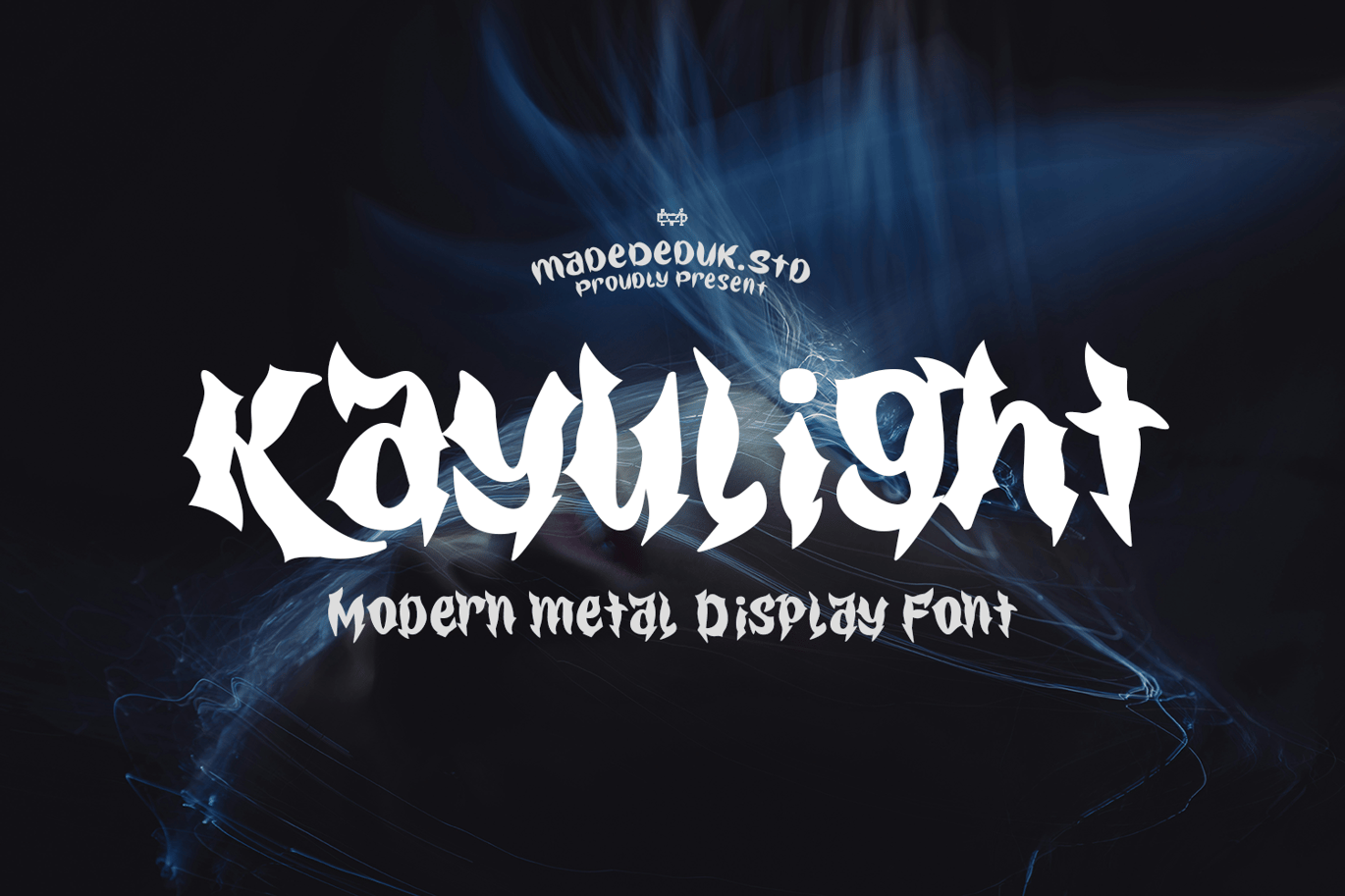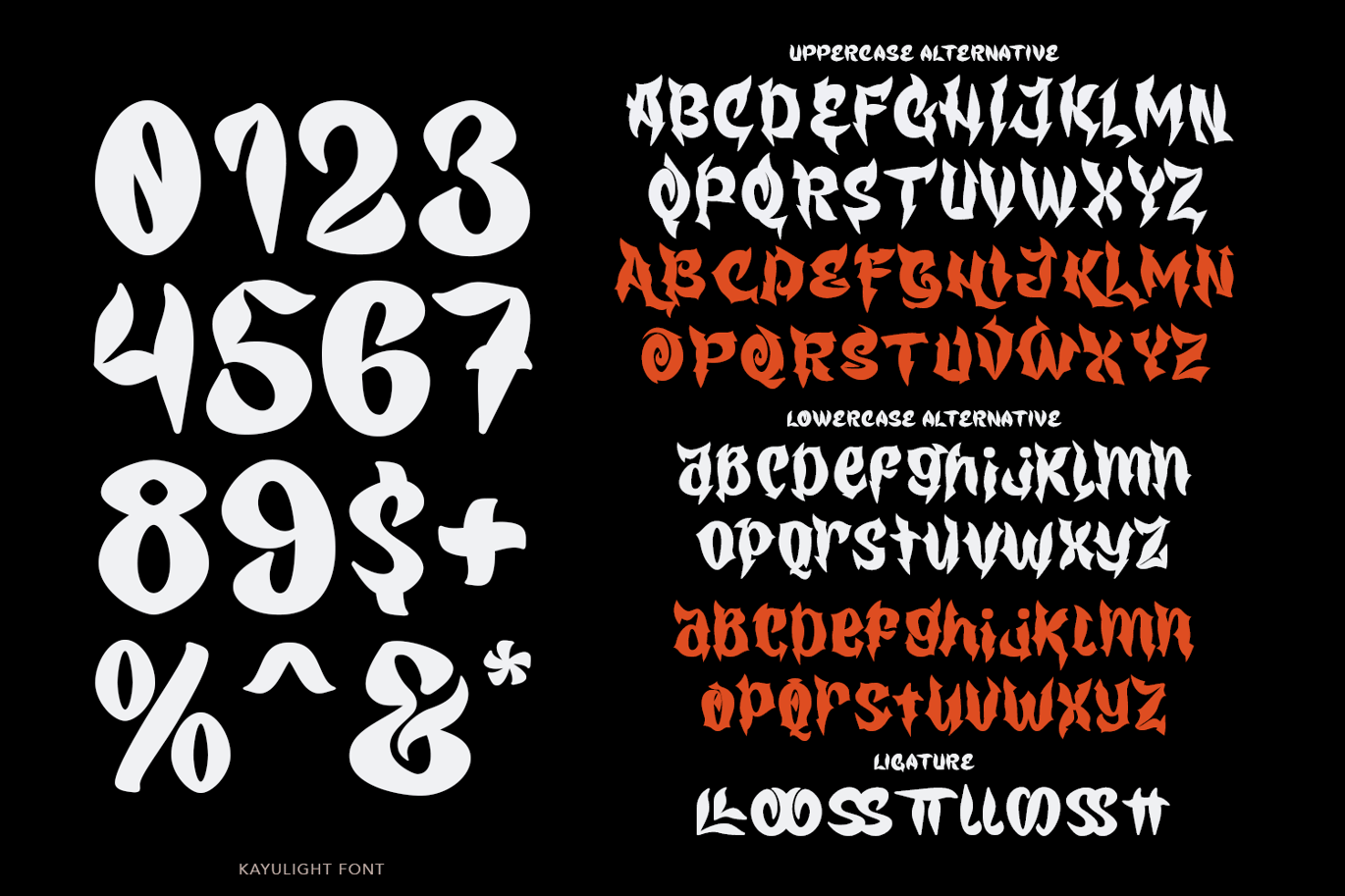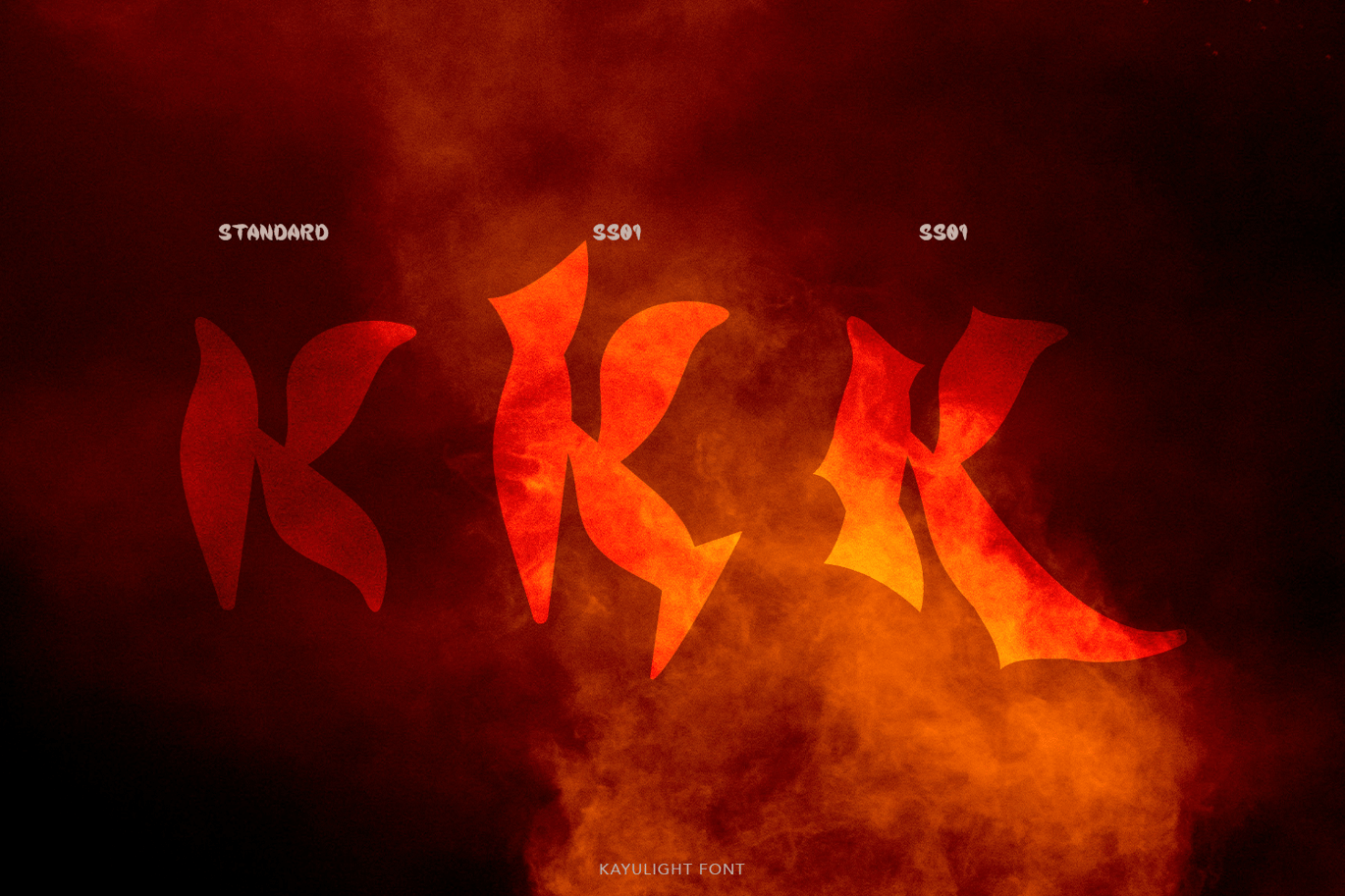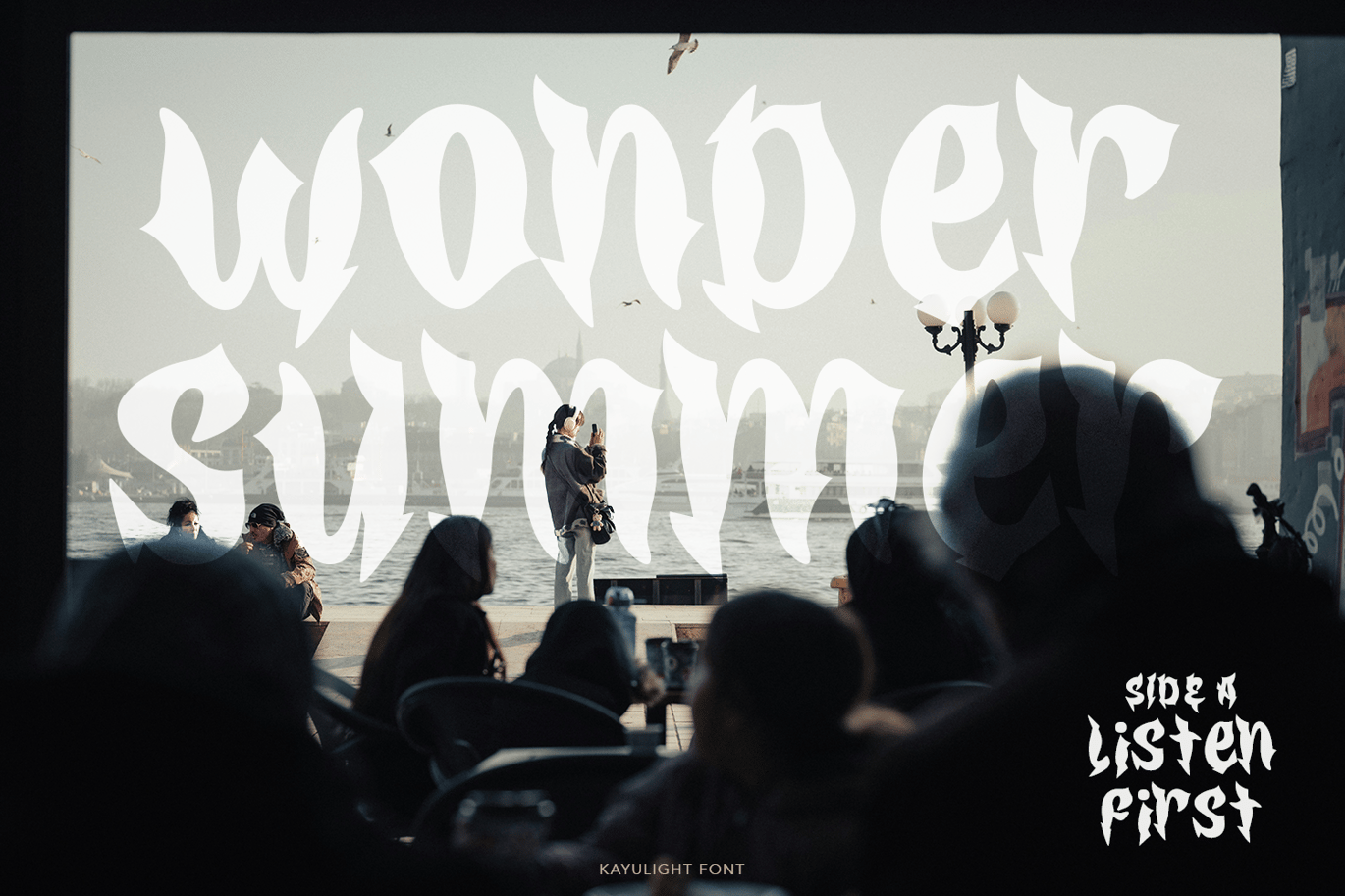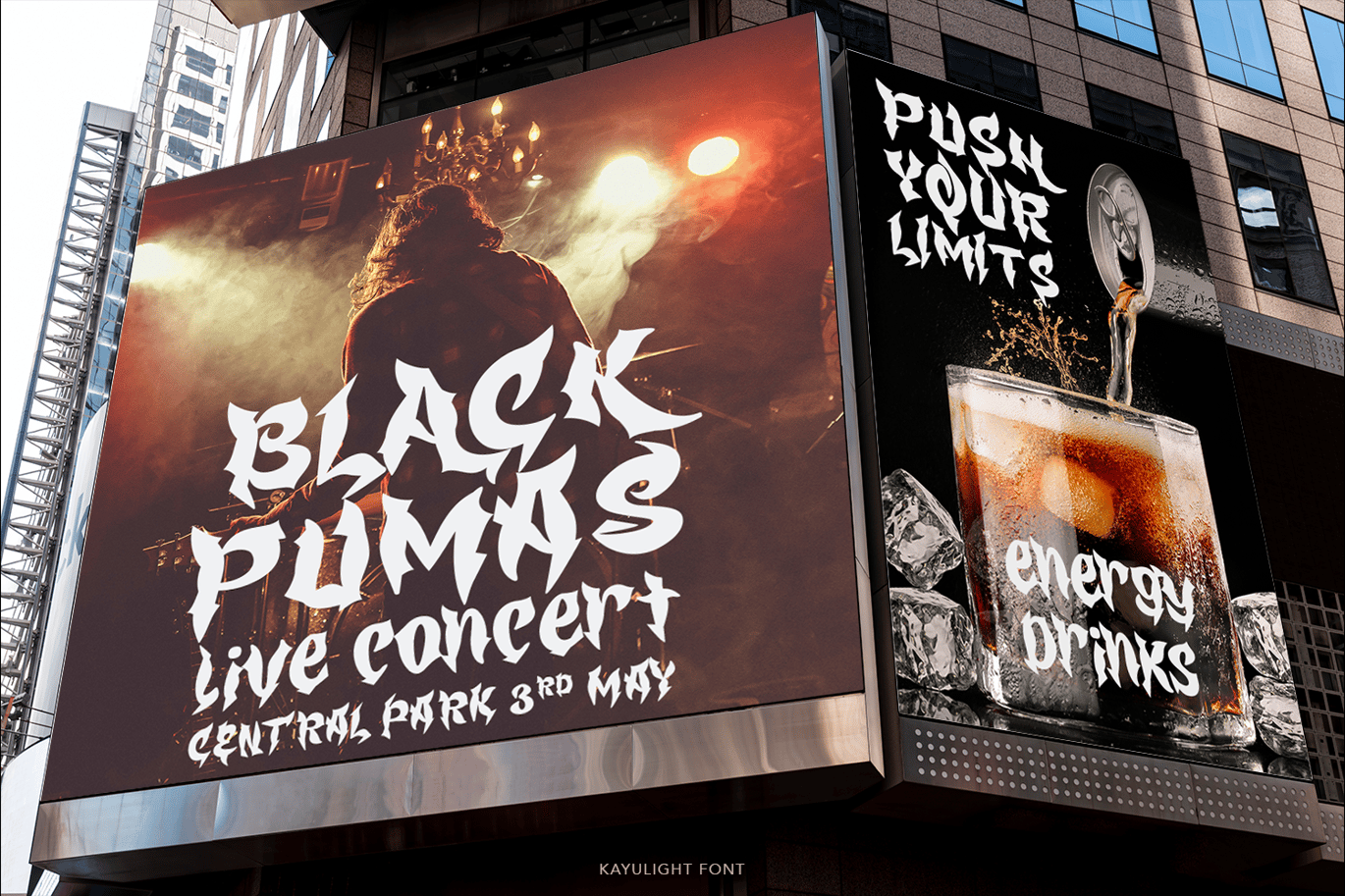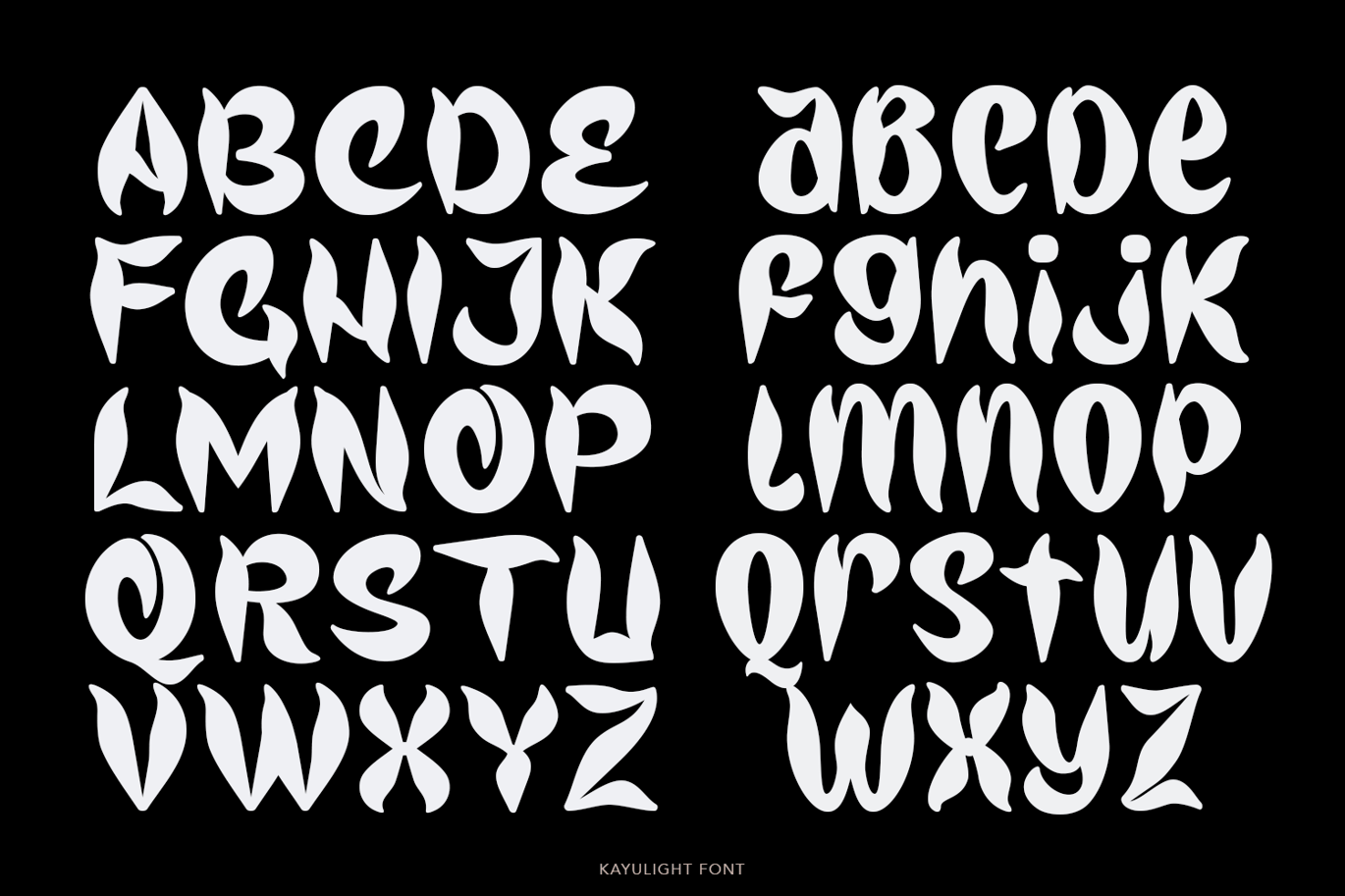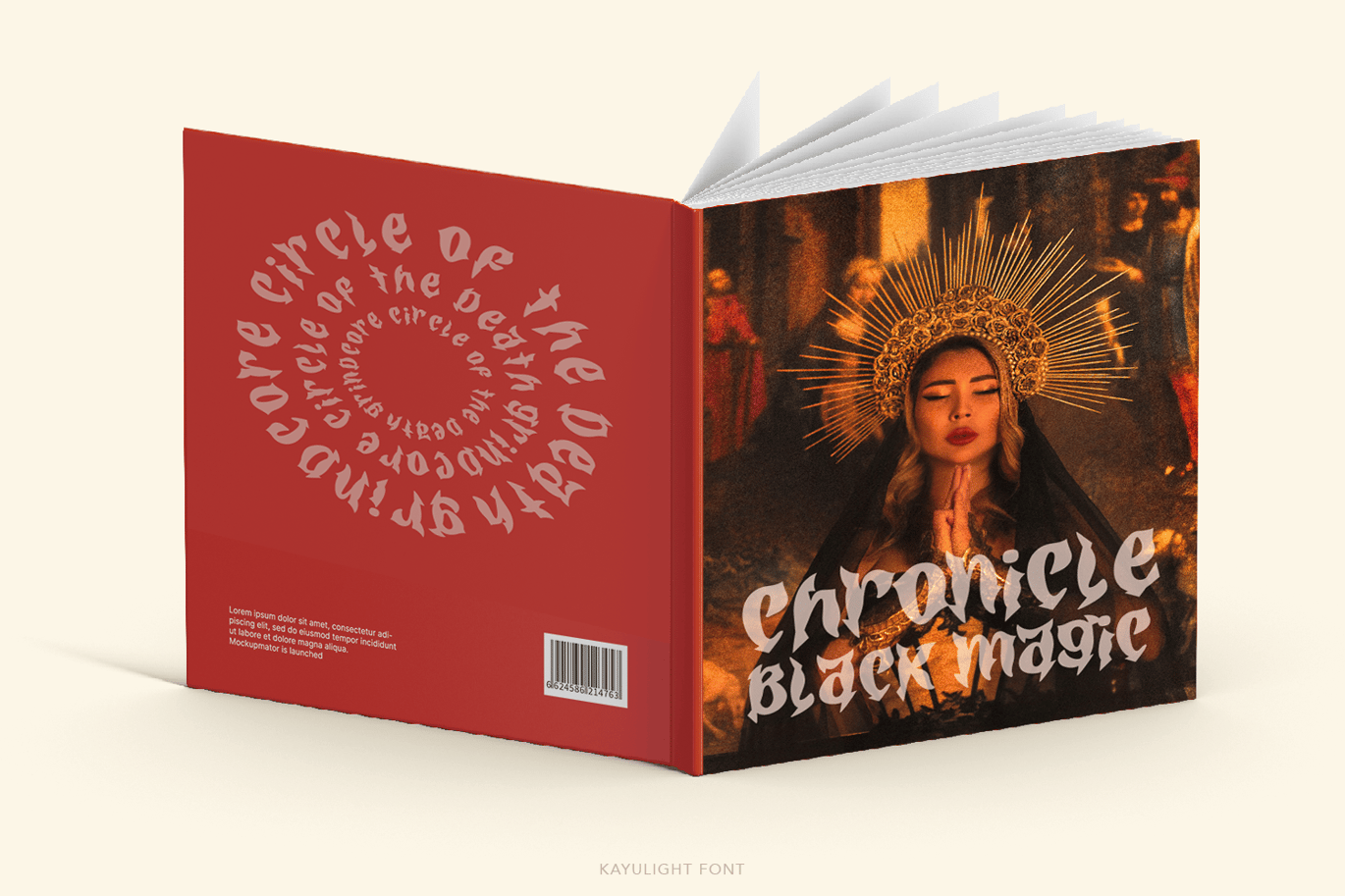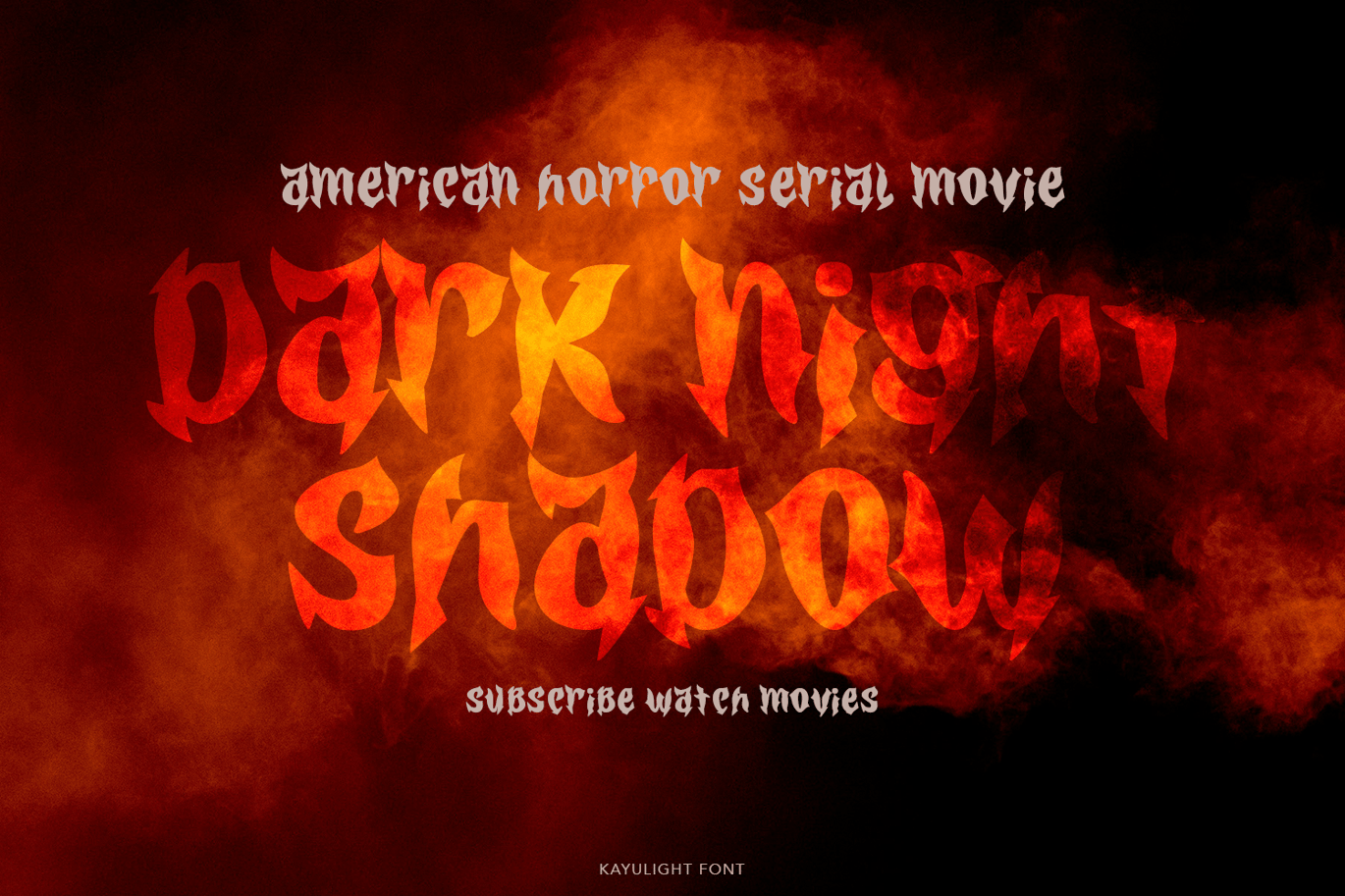
Kayulight Metal Display Font
Really excited to introduce Kayulight is a modern gothic font, made with a heavy sharp impression and supported by alternative with references to various letters that I combine. Suitable for merchandise, clothing, apparel, badges, logos, poster titles, and much more.